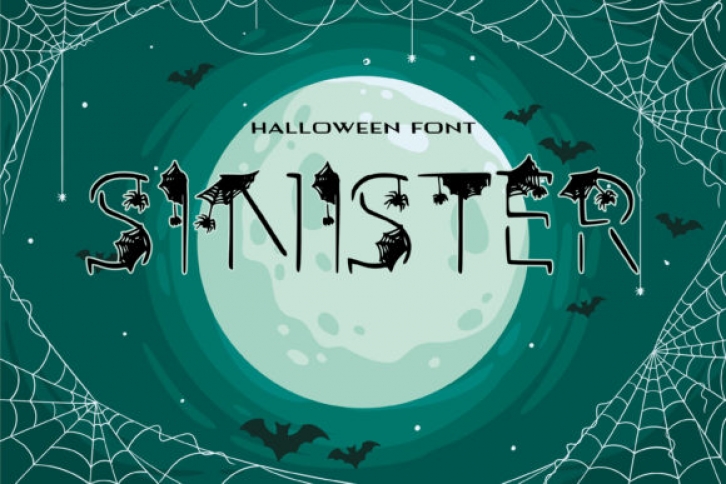
Sinister is an incredibly unique and spooky decorative font, featuring spiders and spider webs as ornaments. Distinct and quirky, this font will elevate each of your Halloween themed ideas!